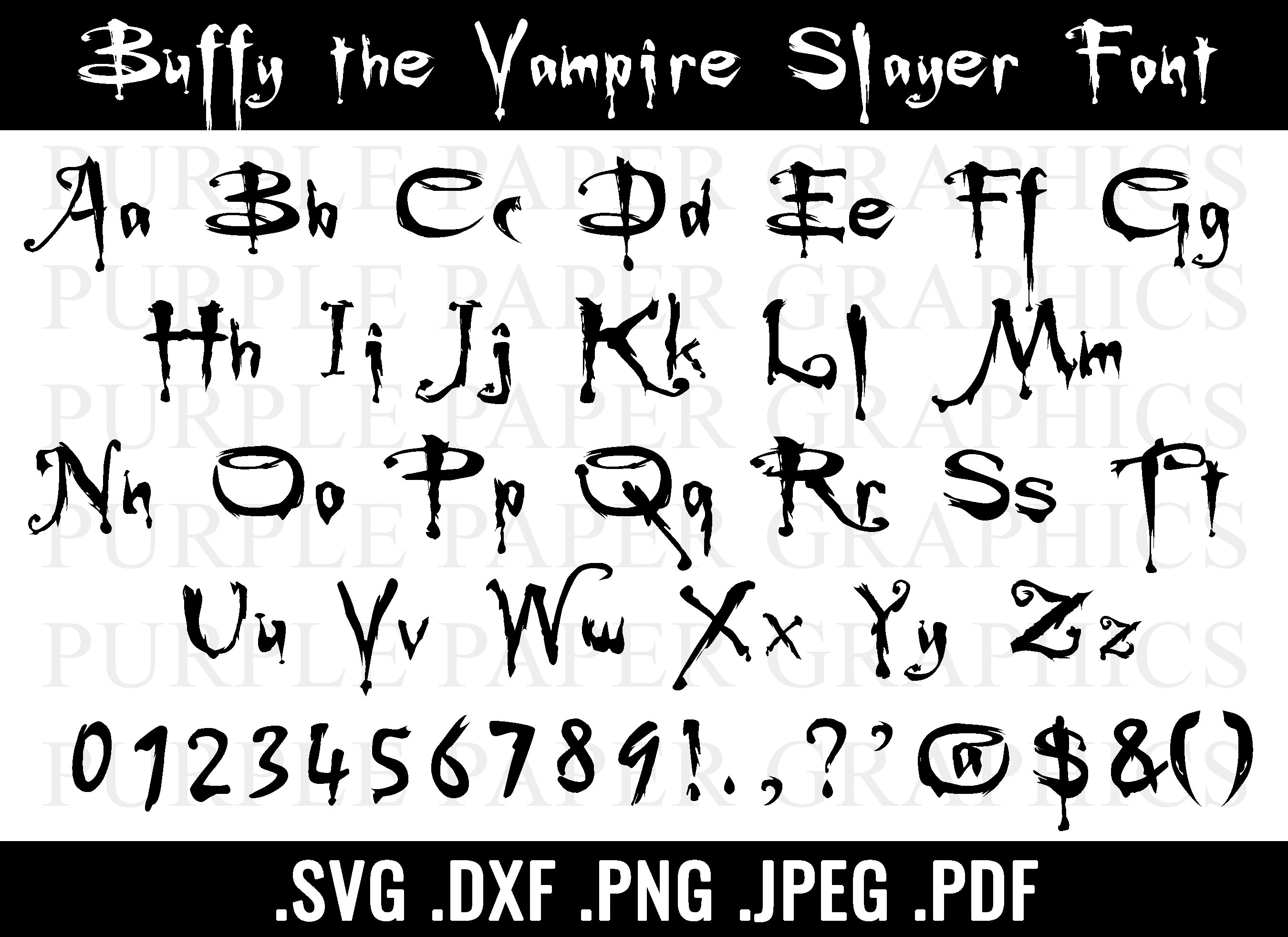
Buffy The Vampire Slayer Font
Buffy The Vampire Slayer Font - Web download a free font based on the title logo from the tv show buffy the vampire slayer, an american supernatural drama series. Web feb 24, 2015 at 17:30. Web thanks to the major success of the tv series, buffy the vampire slayer font is easily recognized by people all over the world. Get your hands on these unique typefaces based on the. For the vampire slayer as you asked too.
Web download a free font based on the title logo from the tv show buffy the vampire slayer, an american supernatural drama series. Web thanks to the major success of the tv series, buffy the vampire slayer font is easily recognized by people all over the world. Get your hands on these unique typefaces based on the. Web feb 24, 2015 at 17:30. For the vampire slayer as you asked too.
Get your hands on these unique typefaces based on the. Web feb 24, 2015 at 17:30. Web thanks to the major success of the tv series, buffy the vampire slayer font is easily recognized by people all over the world. Web download a free font based on the title logo from the tv show buffy the vampire slayer, an american supernatural drama series. For the vampire slayer as you asked too.
Get your hands on these unique typefaces based on the. Web feb 24, 2015 at 17:30. For the vampire slayer as you asked too. Web download a free font based on the title logo from the tv show buffy the vampire slayer, an american supernatural drama series. Web thanks to the major success of the tv series, buffy the vampire.
Get your hands on these unique typefaces based on the. Web download a free font based on the title logo from the tv show buffy the vampire slayer, an american supernatural drama series. Web thanks to the major success of the tv series, buffy the vampire slayer font is easily recognized by people all over the world. Web feb 24,.
The Famous Fonts of Your Favorite '90s TV Shows
For the vampire slayer as you asked too. Web thanks to the major success of the tv series, buffy the vampire slayer font is easily recognized by people all over the world. Web download a free font based on the title logo from the tv show buffy the vampire slayer, an american supernatural drama series. Web feb 24, 2015 at.
Web feb 24, 2015 at 17:30. Get your hands on these unique typefaces based on the. For the vampire slayer as you asked too. Web download a free font based on the title logo from the tv show buffy the vampire slayer, an american supernatural drama series. Web thanks to the major success of the tv series, buffy the vampire.
Buffy The Vampire Slayer Logo Font Champion TV Show
Web feb 24, 2015 at 17:30. Web thanks to the major success of the tv series, buffy the vampire slayer font is easily recognized by people all over the world. Web download a free font based on the title logo from the tv show buffy the vampire slayer, an american supernatural drama series. For the vampire slayer as you asked.
Buffy The Vampire Slayer Logo Font Champion TV Show
Web download a free font based on the title logo from the tv show buffy the vampire slayer, an american supernatural drama series. Web thanks to the major success of the tv series, buffy the vampire slayer font is easily recognized by people all over the world. Get your hands on these unique typefaces based on the. For the vampire.
Buffy The Vampire Slayer Logo Font Champion TV Show
Web download a free font based on the title logo from the tv show buffy the vampire slayer, an american supernatural drama series. For the vampire slayer as you asked too. Web feb 24, 2015 at 17:30. Web thanks to the major success of the tv series, buffy the vampire slayer font is easily recognized by people all over the.
Buffy The Vampire Slayer font download Famous Fonts
For the vampire slayer as you asked too. Get your hands on these unique typefaces based on the. Web thanks to the major success of the tv series, buffy the vampire slayer font is easily recognized by people all over the world. Web download a free font based on the title logo from the tv show buffy the vampire slayer,.
Buffy Alphabet Font svg Buffy SVG Buffy design files Buffy Etsy
Get your hands on these unique typefaces based on the. Web thanks to the major success of the tv series, buffy the vampire slayer font is easily recognized by people all over the world. Web feb 24, 2015 at 17:30. For the vampire slayer as you asked too. Web download a free font based on the title logo from the.
Buffy The Vampire Slayer Logo Font Champion TV Show
Web thanks to the major success of the tv series, buffy the vampire slayer font is easily recognized by people all over the world. For the vampire slayer as you asked too. Web feb 24, 2015 at 17:30. Web download a free font based on the title logo from the tv show buffy the vampire slayer, an american supernatural drama.
Get Your Hands On These Unique Typefaces Based On The.
Web download a free font based on the title logo from the tv show buffy the vampire slayer, an american supernatural drama series. Web feb 24, 2015 at 17:30. Web thanks to the major success of the tv series, buffy the vampire slayer font is easily recognized by people all over the world. For the vampire slayer as you asked too.